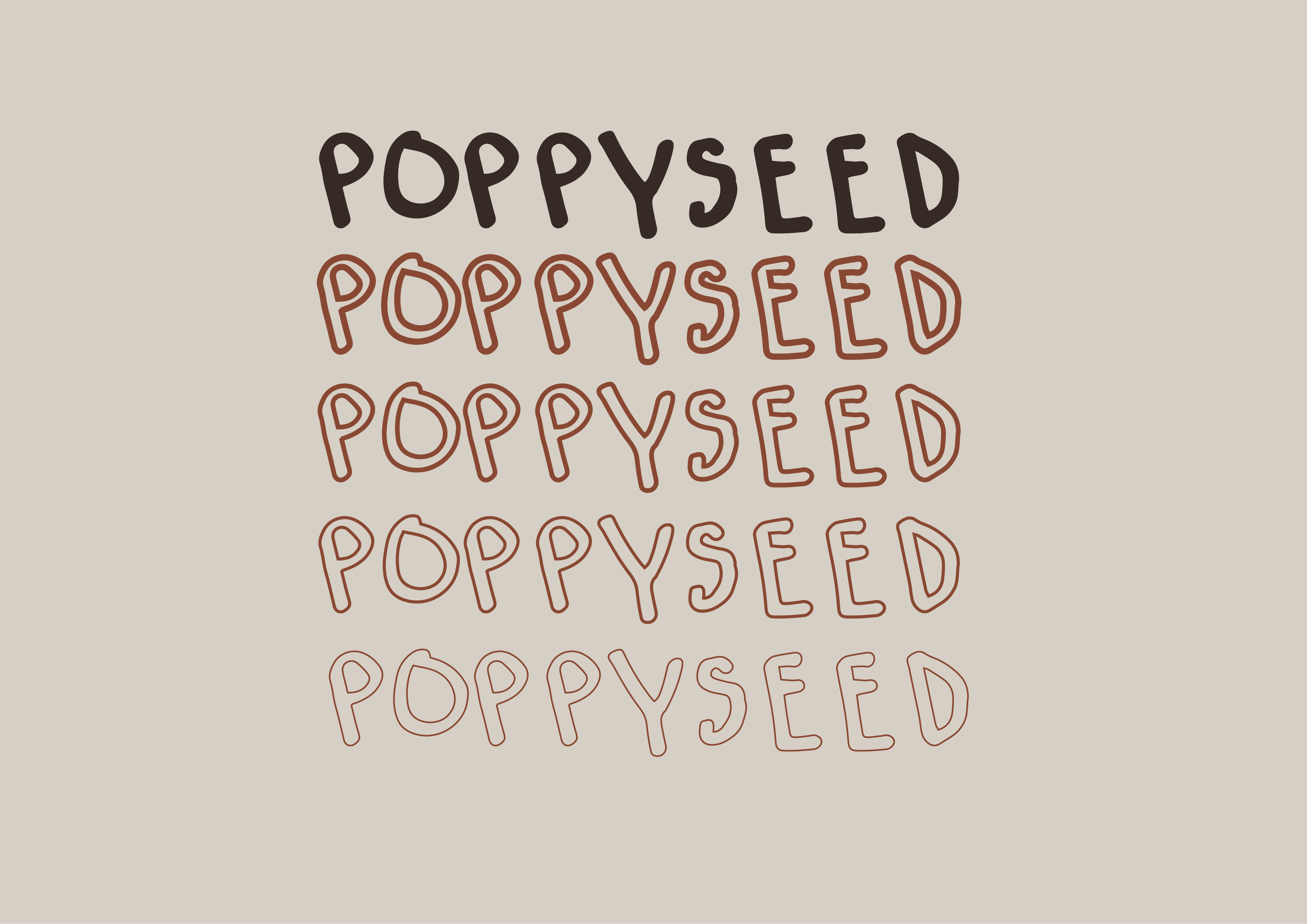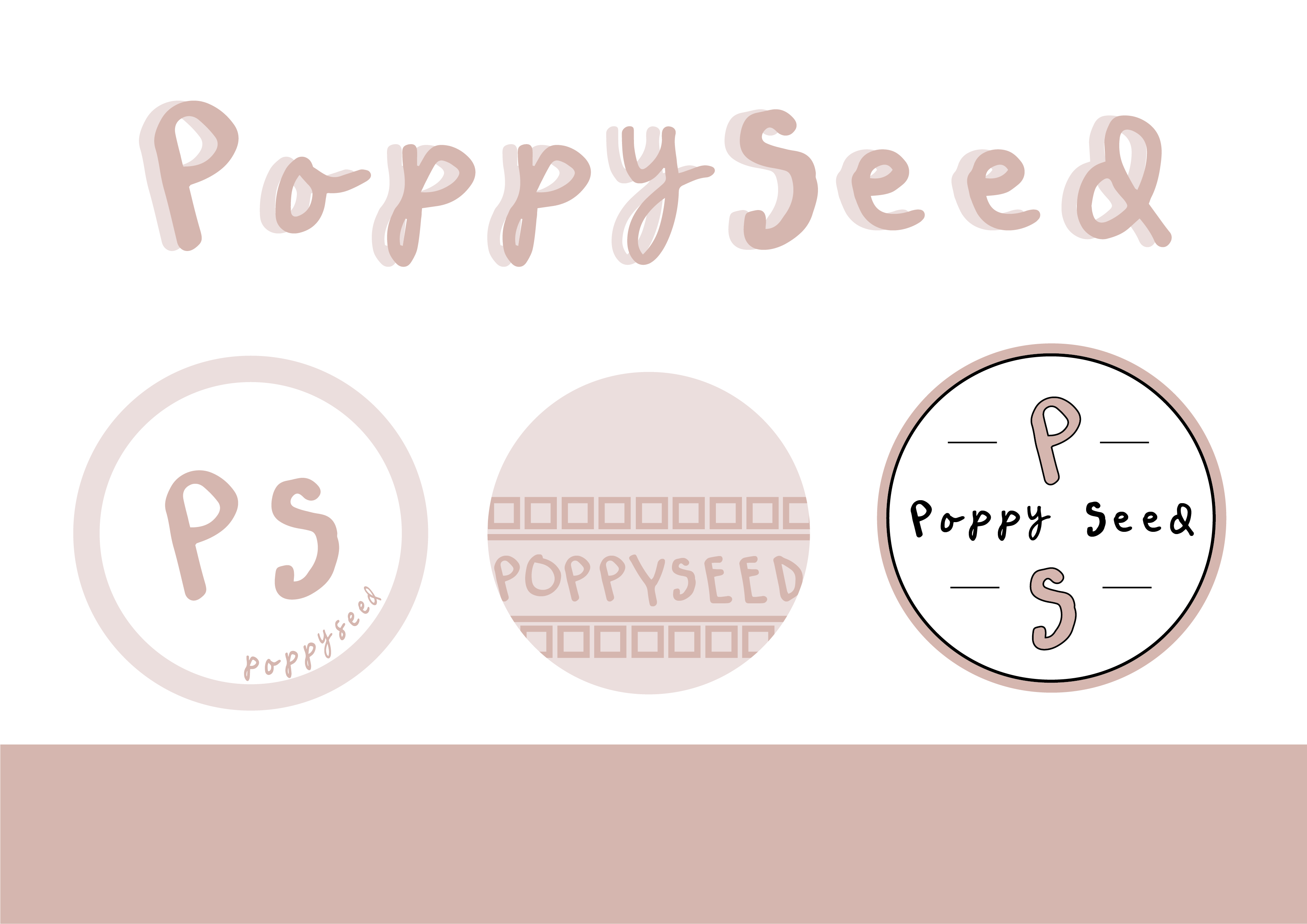
Poppy Seed Font
About Poppy Seed Font
“A curly hand-written font, made physically by me. The capital letters have a more bold, marker appearance and the lower-case letters are more curly and messy.”